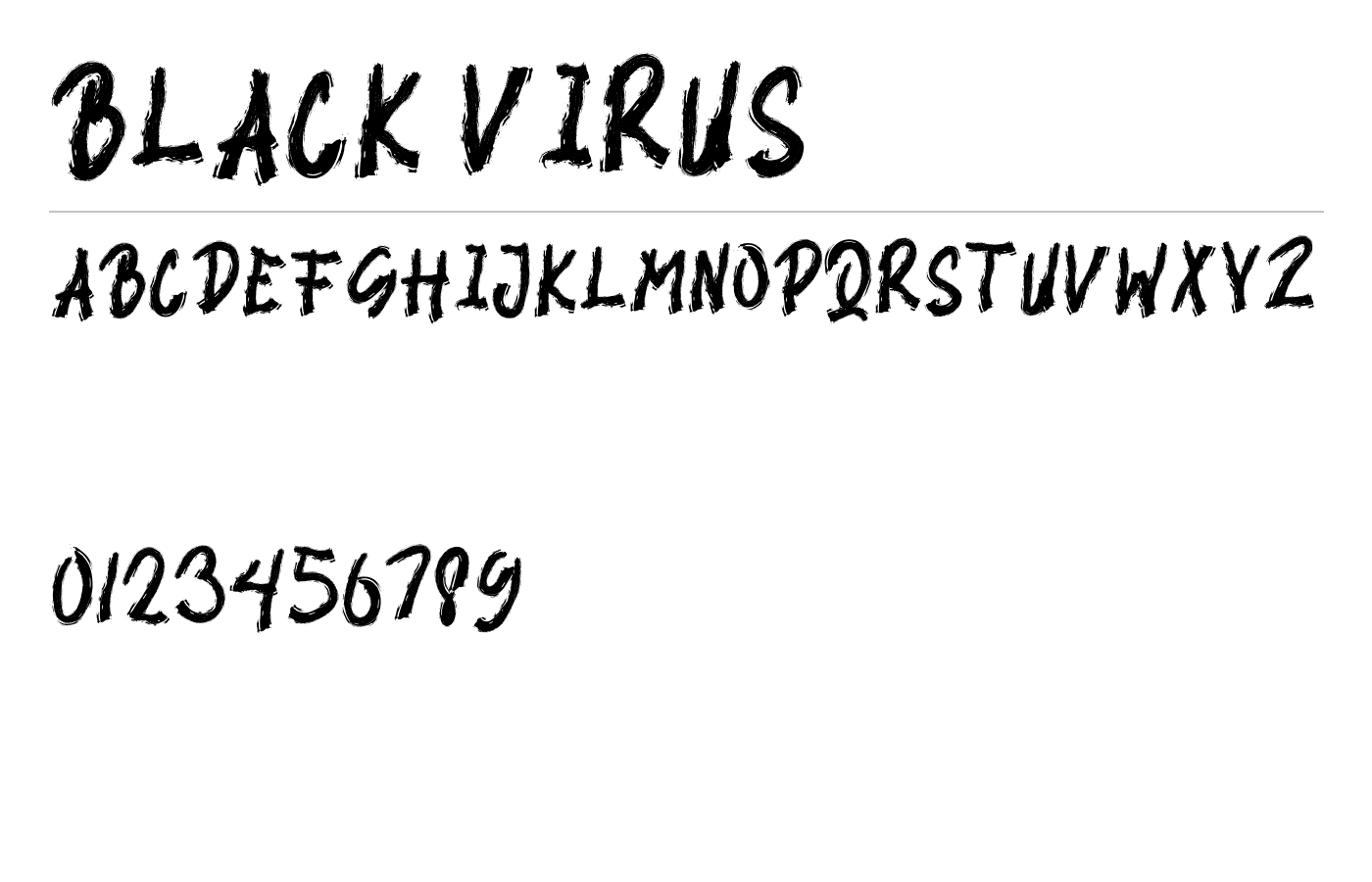
BLACK VIRUS is a bold, hand-drawn brush script font with a rough, textured style that gives it an edgy and dynamic look. Its irregular strokes and slightly condensed letterforms create a sense of energetic spontaneity, making it ideal for designs that want to convey creativity, intensity, or a rebellious vibe. This font works best for posters, logos, and branding that seek a raw, artistic feel rather than polished refinement.
BLACK VIRUS Font
About BLACK VIRUS Font
| Font family | BLACK VIRUS Font |
| Designer | AMINMARIO 2020 |